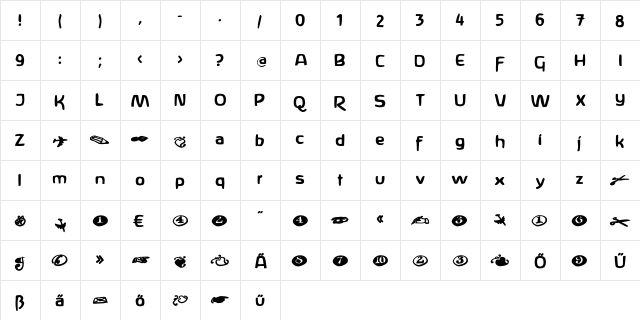
AnthroPosoph Regular
Design Context for AnthroPosoph Typeface
AnthroPosoph takes a measured approach to typography — its balanced proportions and neutral character make it a reliable workhorse for both digital and print work.